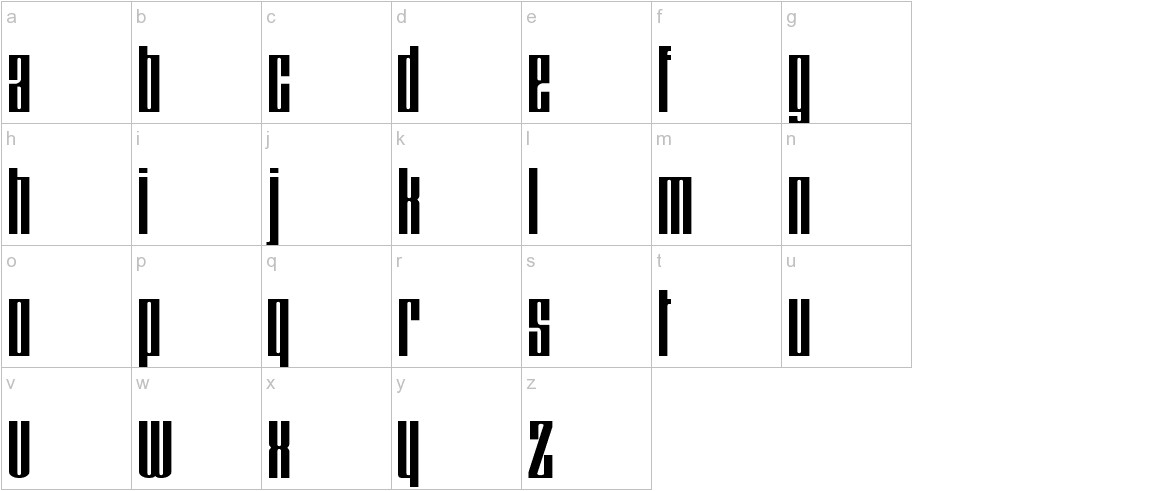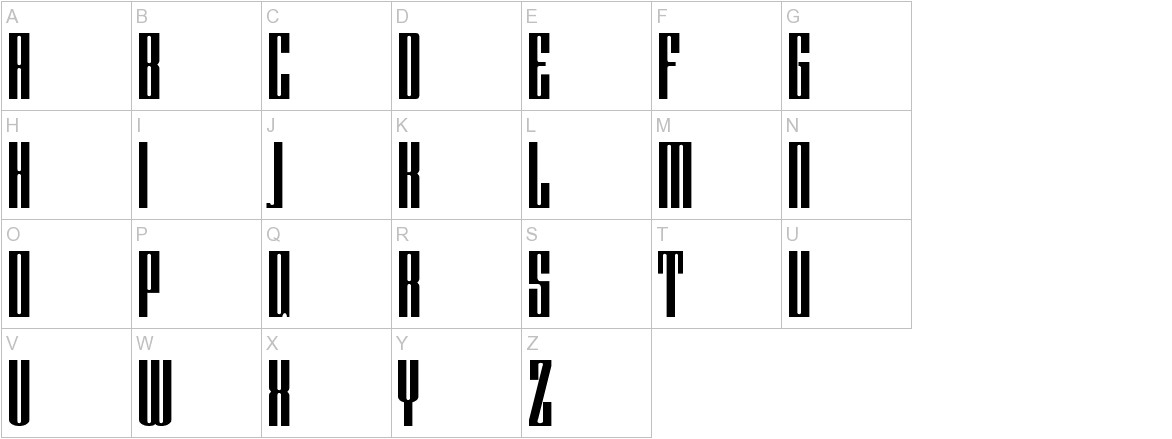
HFF Lasdof Twunyliven
Based on Herald Square from Condensed Alphabets by Dan Solo.
Lasdof Twunyliven is pronounced "last day of twenty eleven" bcause the font was completed and first released at alt.binaries.fonts on December 31, 2011. This proves that I am really, really good when it comes to spelling (and I haven't even mentioned grammar.) 8D